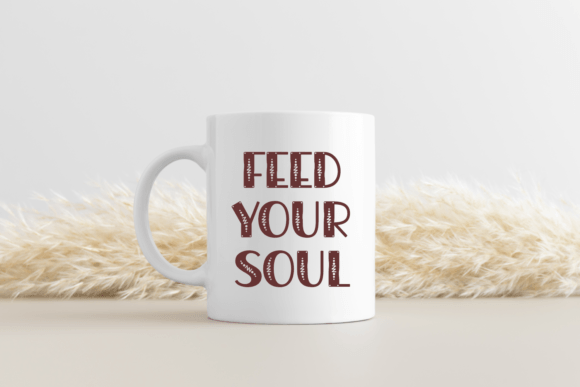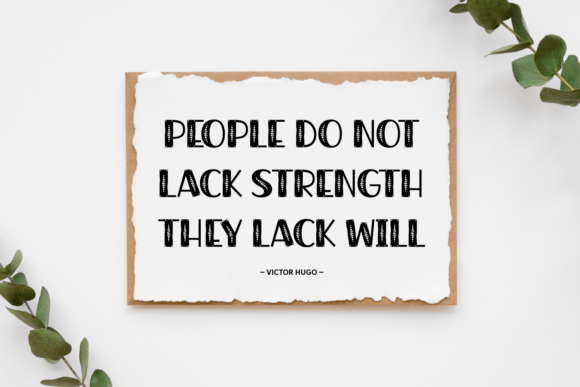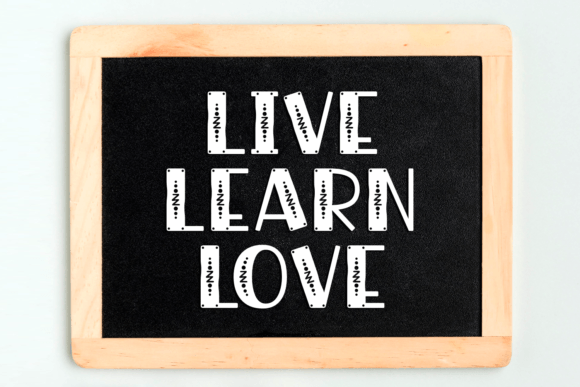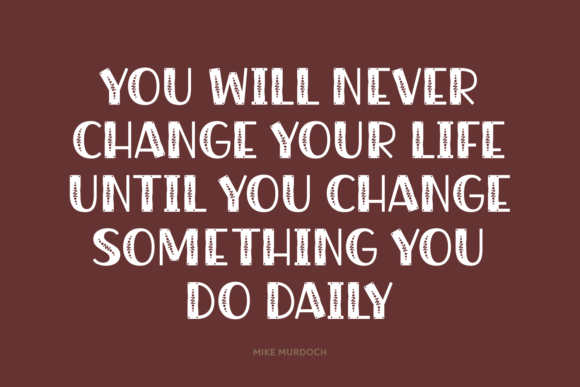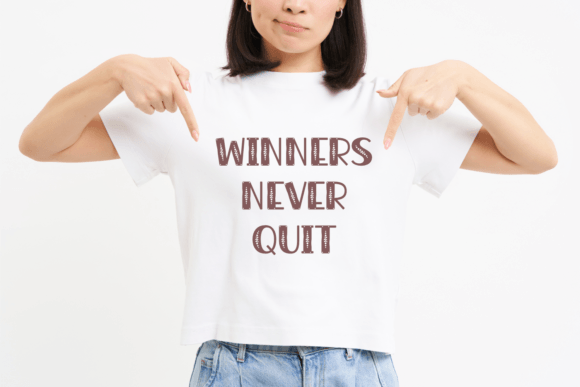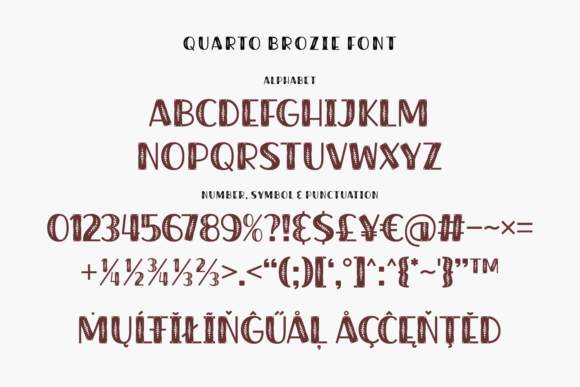
Introduction to Quarto Brozie Font
Have you ever stumbled upon a font that perfectly captures the essence of a creative project? For designers, it’s a moment of pure joy – the font just clicks, and the project starts to come alive. That’s exactly what happens when you discover the Quarto Brozie Font, a playful and stylish font that exudes a youthful spirit.
Whether you’re working on a professional branding project or a casual design for a special occasion, Quarto Brozie Font is a valuable resource that can elevate your design to the next level. Its versatility and high-quality design make it suitable for a wide range of applications, from websites and business cards to packaging, posters, and social media posts.
Key Features of Quarto Brozie Font
- Unique, hand-drawn style with a transparent background, perfect for adding a personal touch to your designs.
- Quarto Brozie Font is available in a single size, making it easy to use in a variety of design applications.
- Features a high resolution, suitable for use in both print and digital designs, including logos, graphics, and more.
- Designed to be versatile and easy to use, making it a great addition to any designer’s font collection.
Honest Review: Quarto Brozie Font
I recently stumbled upon the Quarto Brozie Font, and I must say it’s a great addition to any designer’s toolkit. With a free download available, I was excited to put it to the test on a creative project.
The font itself is quite stylish, with a modern feel that’s perfect for any design project. I particularly love the ✨ high quality aesthetic it brings to the table. The transparent background is a nice touch, making it easy to integrate into any design.
- Modern style fits well with contemporary design trends
- May not be as versatile as other fonts in the market
- Some characters may not render well in certain contexts
Overall, I’m impressed with the Quarto Brozie Font. While it may not be perfect, it’s a solid choice for designers looking for a modern, high-quality font to add to their design resource library.
Common Use Cases for Quarto Brozie Font
The Quarto Brozie Font is ideal for creative projects that require a unique and eye-catching font. Some common use cases include logos, business cards, brochures, and social media graphics.
Alternatives to Quarto Brozie Font
A high-quality, elegant script font suitable for creative projects requiring a touch of sophistication. Alex Brush Font is ideal for use in wedding invitations, magazine headings, and other design elements where a refined, handwritten look is desired.
Compared to Quarto Brozie Font, Alex Brush Font offers a more refined and elegant appearance, making it suitable for a wider range of design applications. While Quarto Brozie Font excels in providing a unique, handwritten feel, Alex Brush Font provides a more polished and sophisticated look.
A modern sans-serif font designed for use in a variety of creative projects, including business cards, logos, and packaging design. Carolyna Pro Font features a clean and minimalist design, making it perfect for projects requiring a simple yet effective visual identity.
Compared to Quarto Brozie Font, Carolyna Pro Font offers a more modern and sleek appearance, making it suitable for a wide range of design applications, from corporate branding to product design. While Quarto Brozie Font excels in providing a unique, handwritten feel, Carolyna Pro Font provides a clean and minimalist look.